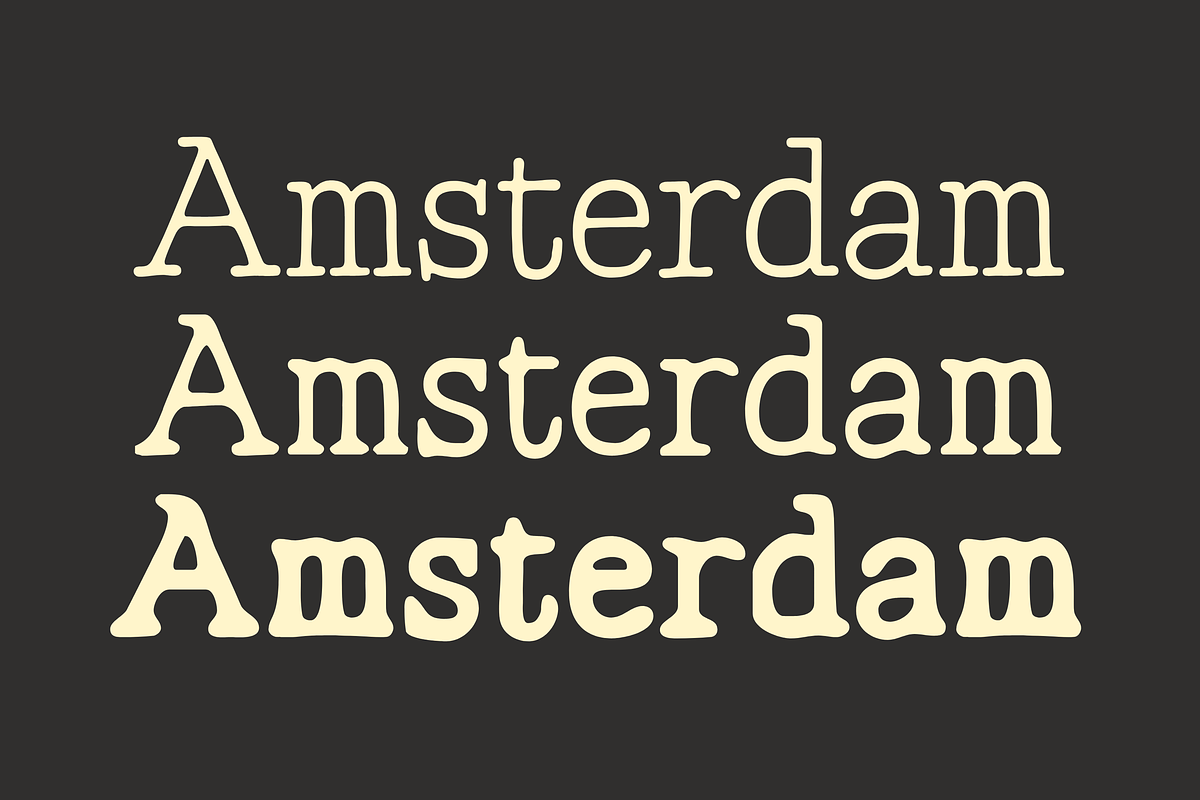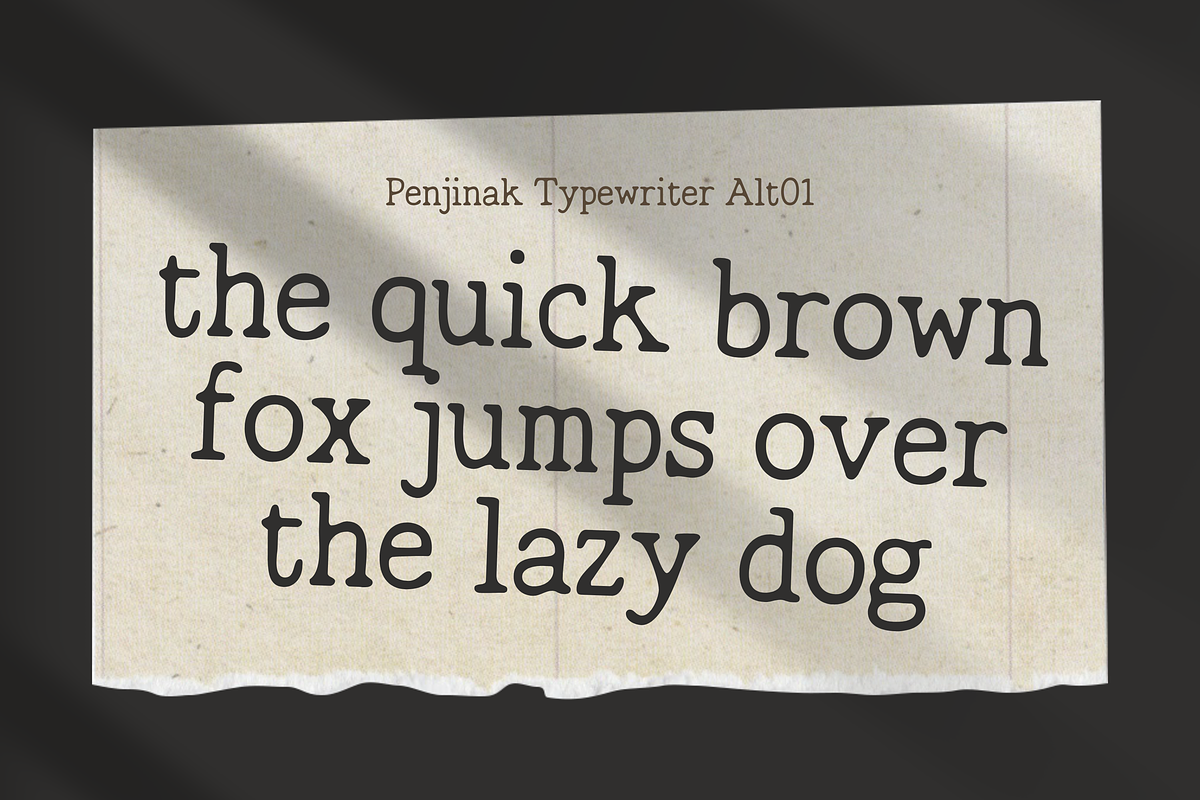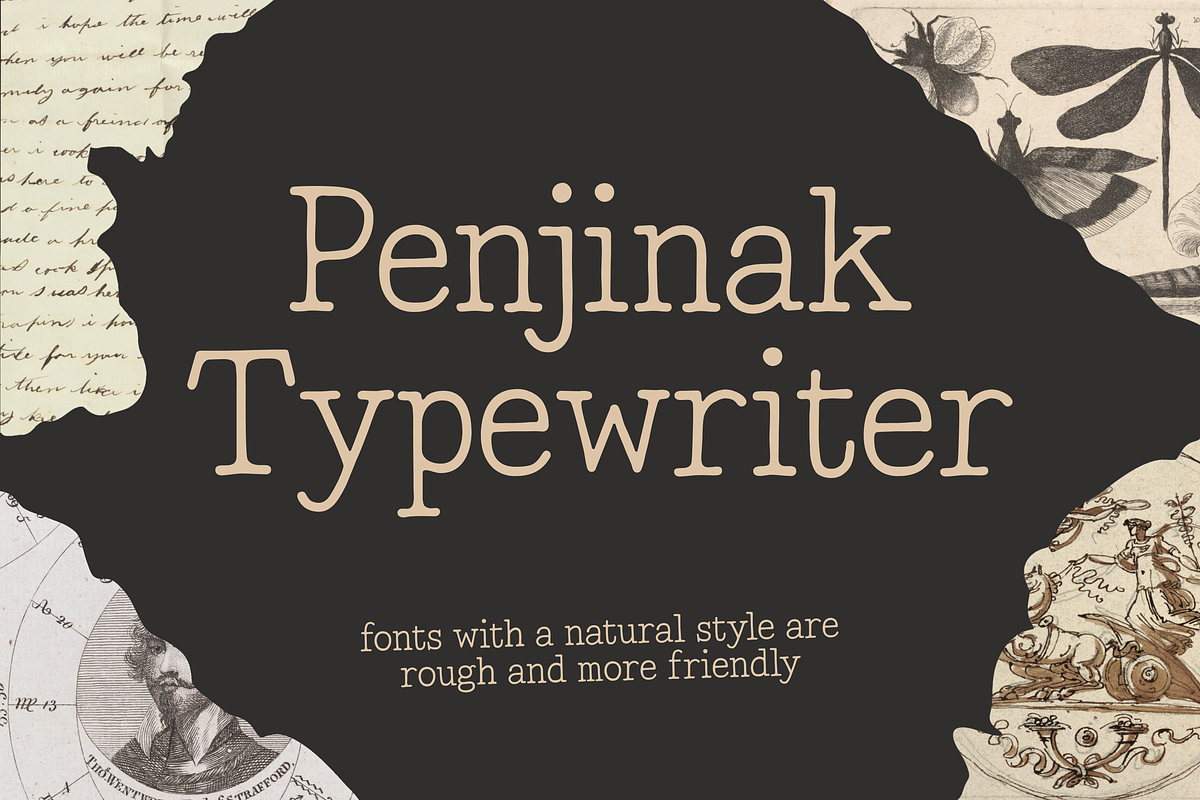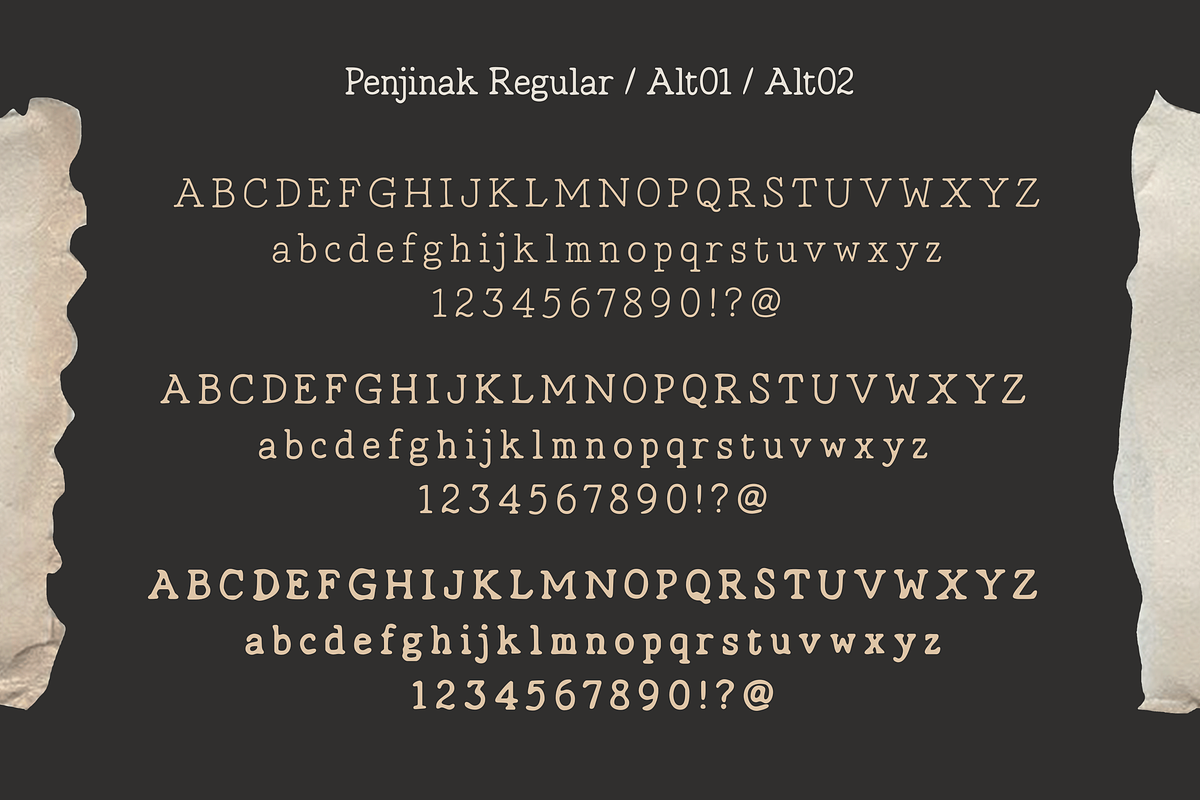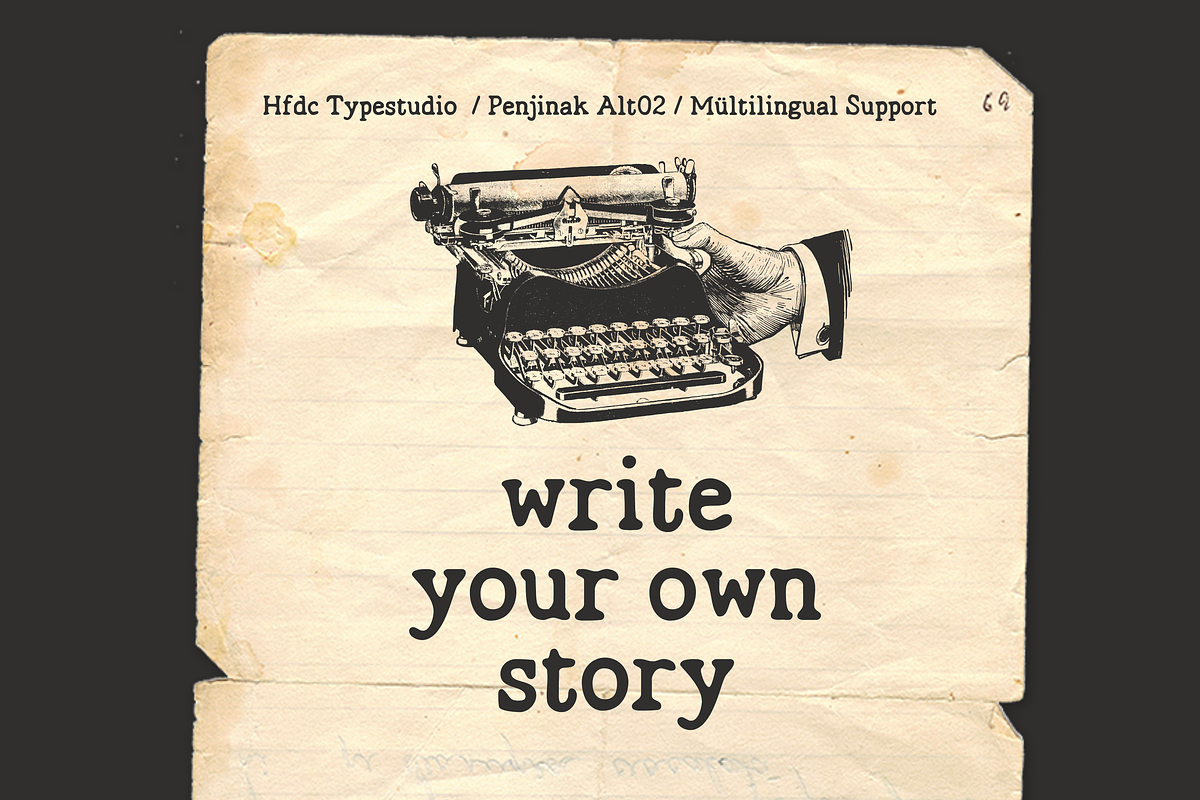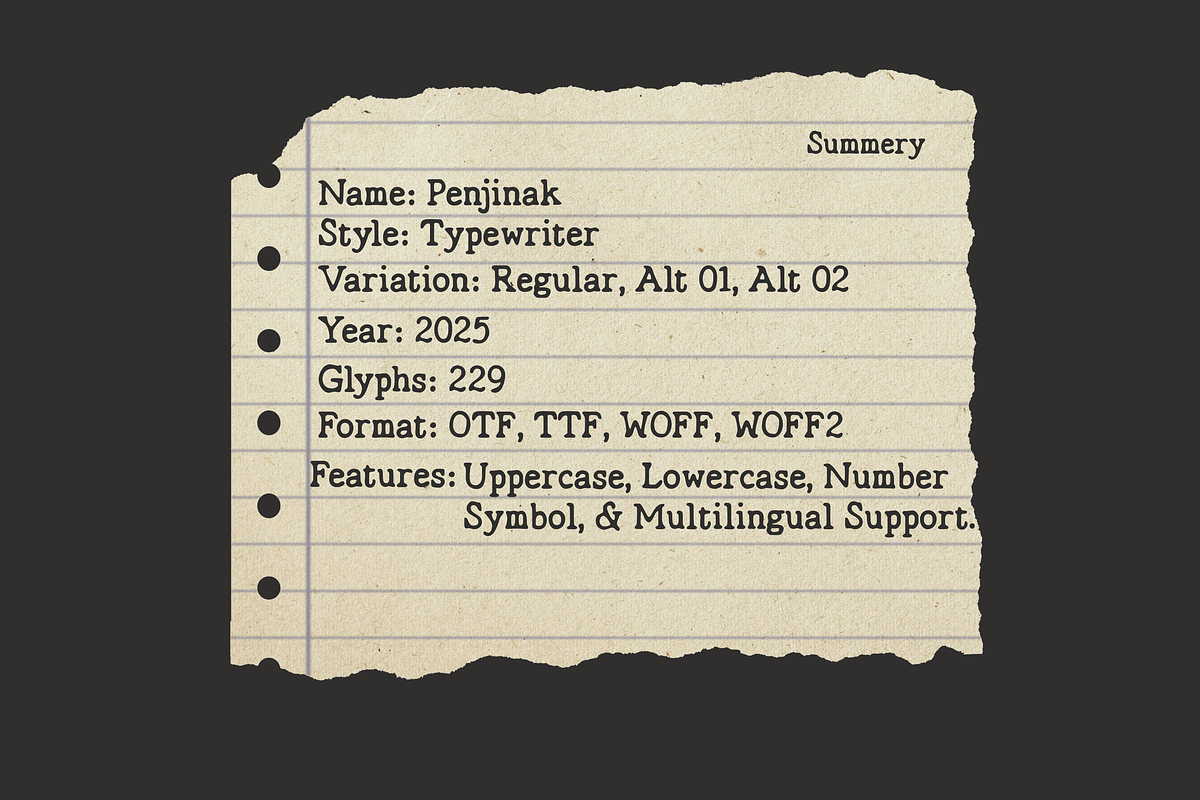
Penjinak Typewriter
Introducing Penjinak Typewriter, a charming typewriter-style font that effortlessly combines the allure of classic handwriting with a playful, vintage vibe. This unique typeface brings a sense of nostalgia to your projects, making it the perfect choice for logos, posters, and captivating quotes. Whether you're crafting an inviting package or designing a standout title, Penjinak Typewriter adds a touch of personality that resonates with your audience. With its carefully crafted ligatures and stylistic alternates, this font offers versatility and flair, ensuring your text stands out in any context.
The Penjinak Typewriter font supports a robust glyph set of over 200 characters, allowing for seamless multilingual communication and creative expression. Available in popular file formats including TTF, OTF, WOFF, and WOFF2, this font is designed for easy integration into your design workflow, whether you're a professional designer or a DIY enthusiast. Elevate your branding and marketing materials with the charming character of Penjinak Typewriter, where every letter tells a story.